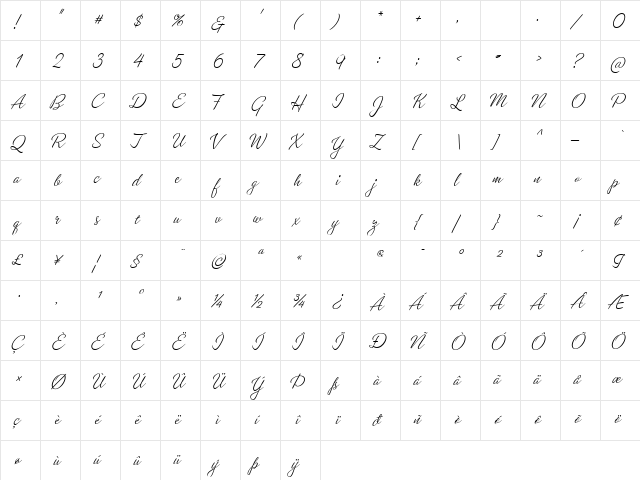
House Holiday TTF Script
| Style | Script |
| Foundry | House Industries |
| Designer | Ken Barber |
Design Context for House Holiday TTF Typeface
House Holiday TTF flows with the natural rhythm of handwritten lettering, making it ideal for designs that call for warmth and personal expression.
Font Pairing: Combine House Holiday TTF with a simple geometric sans for maximum contrast — the tension between flowing curves and clean structure is a classic typographic pairing.
Pro Tip: Pair House Holiday TTF with a clean sans-serif for supporting text. The contrast between fluid script and geometric structure creates an elegant typographic hierarchy.